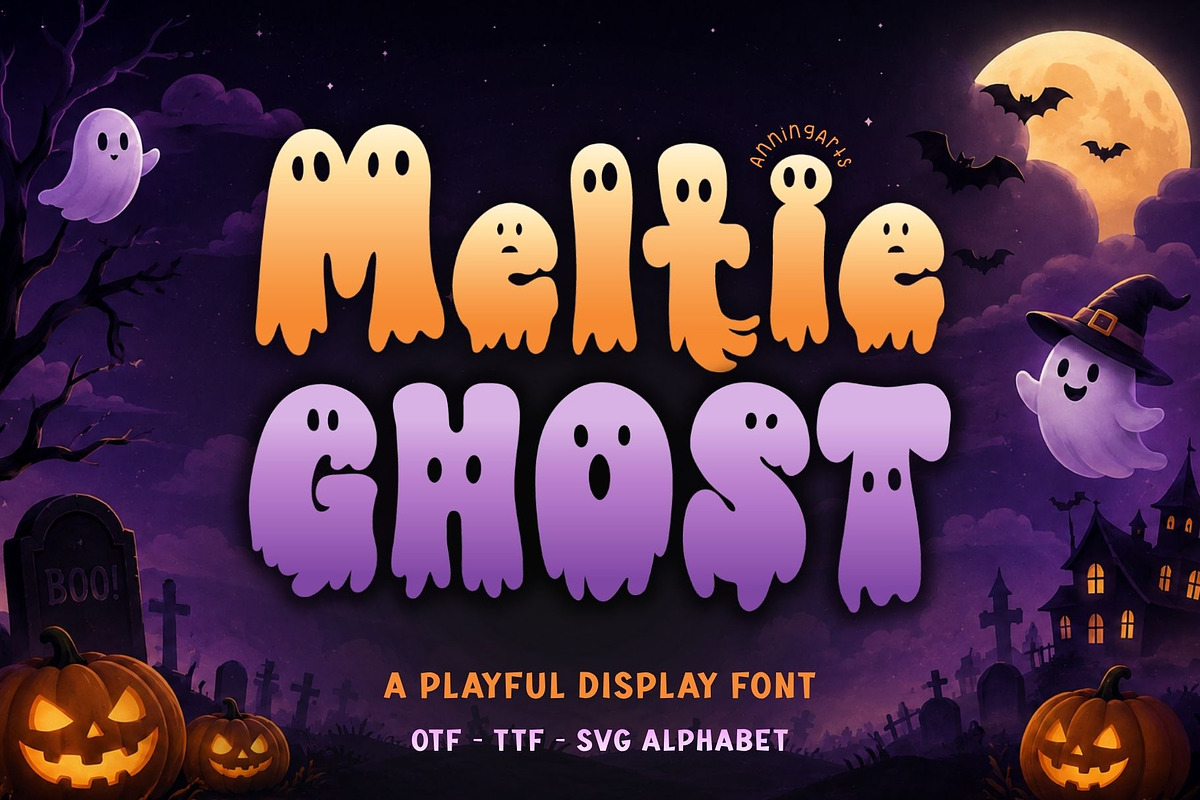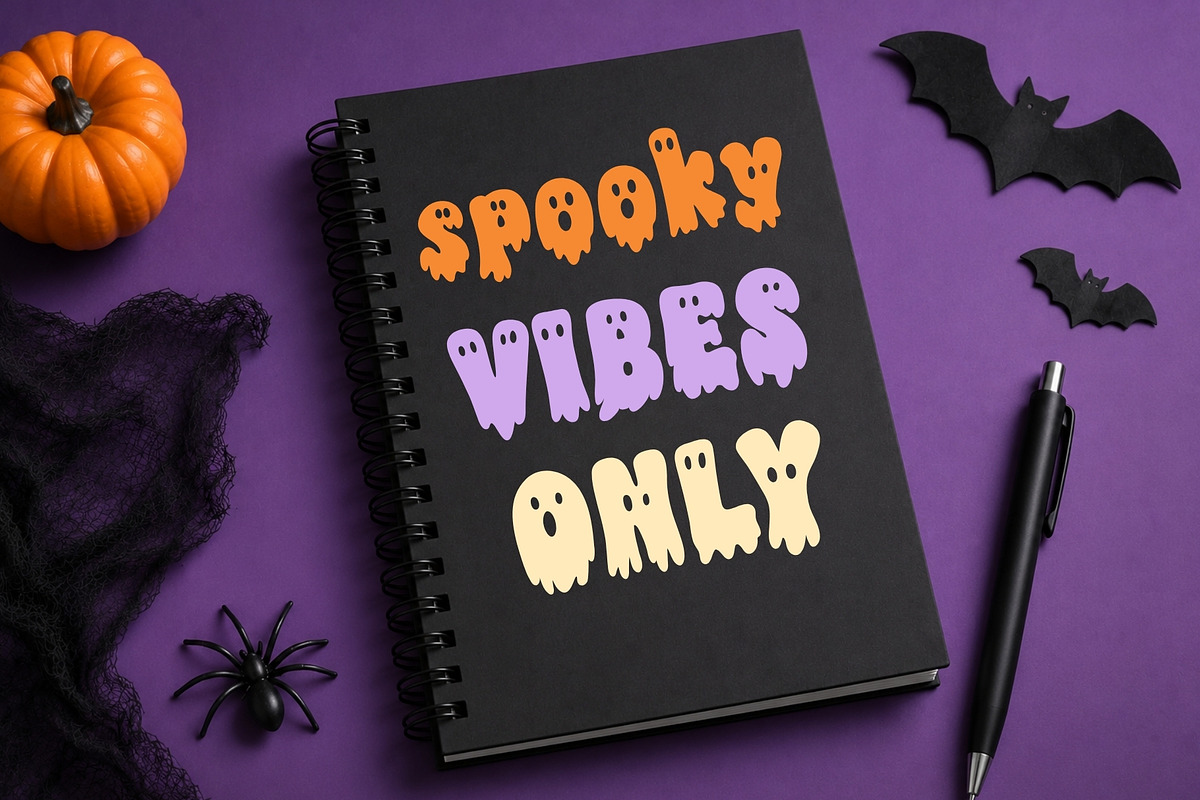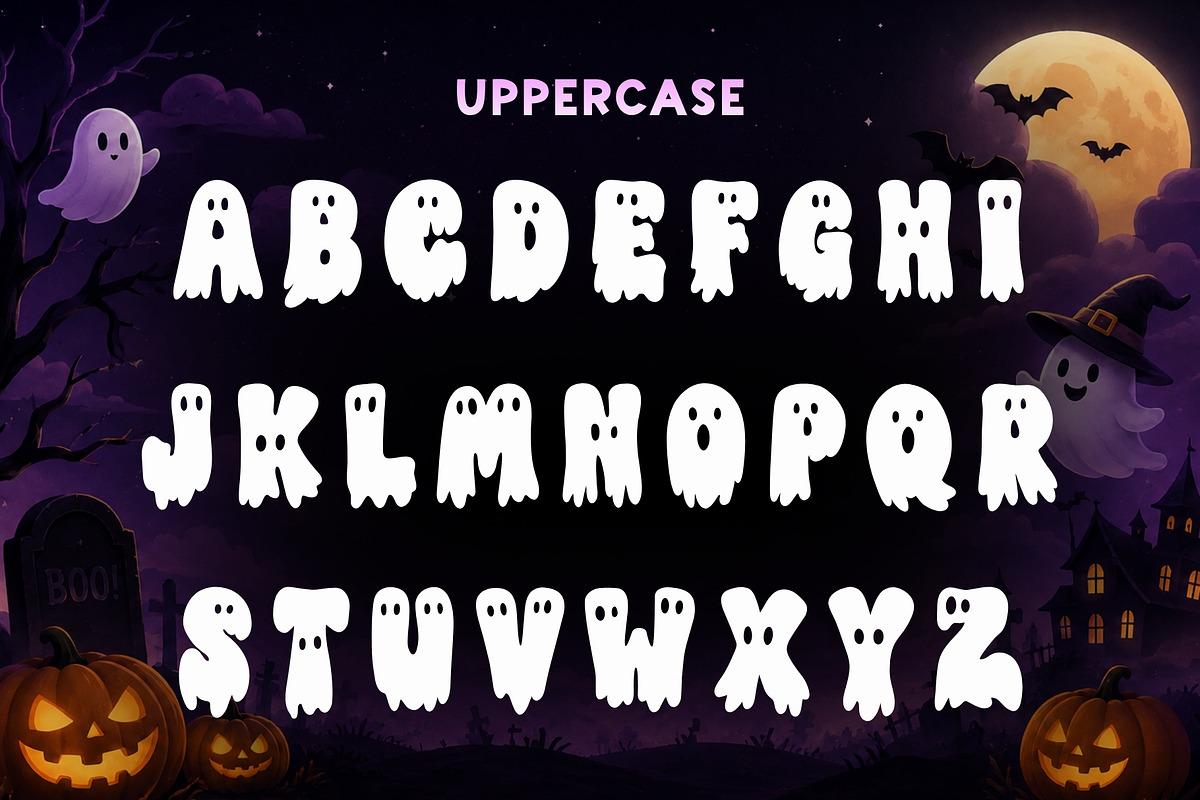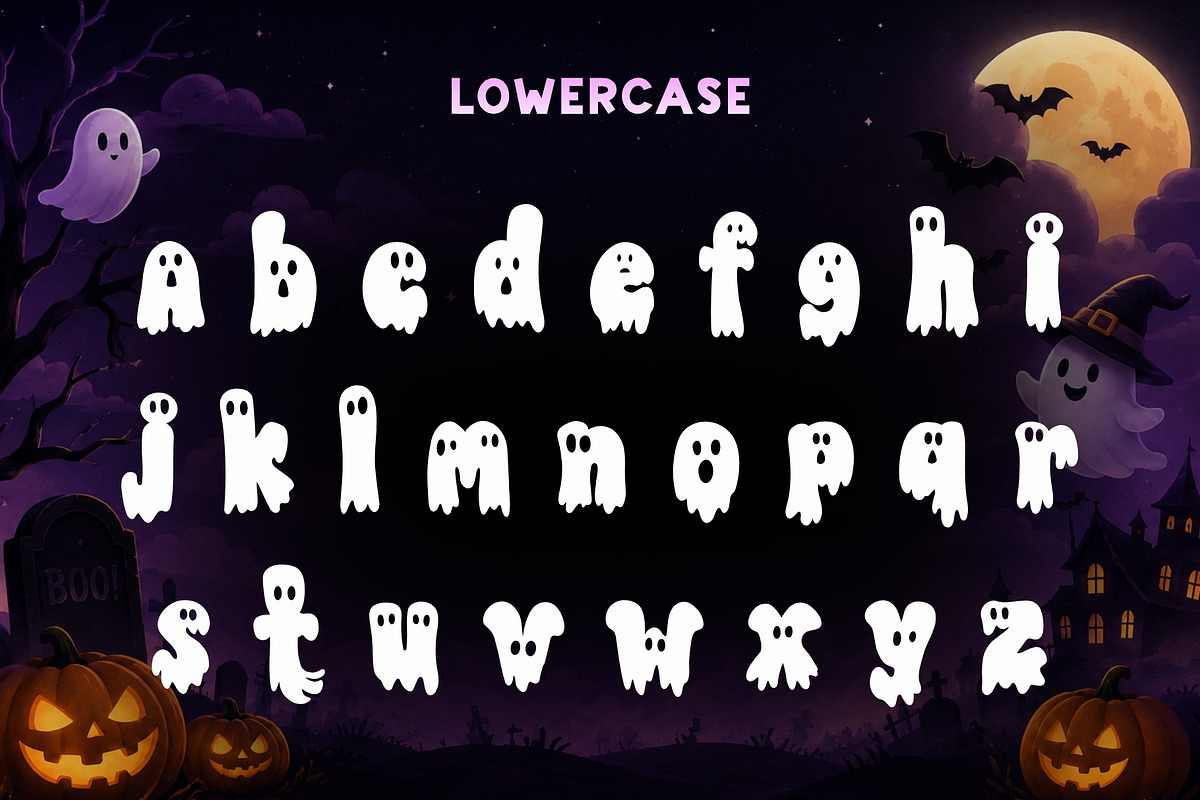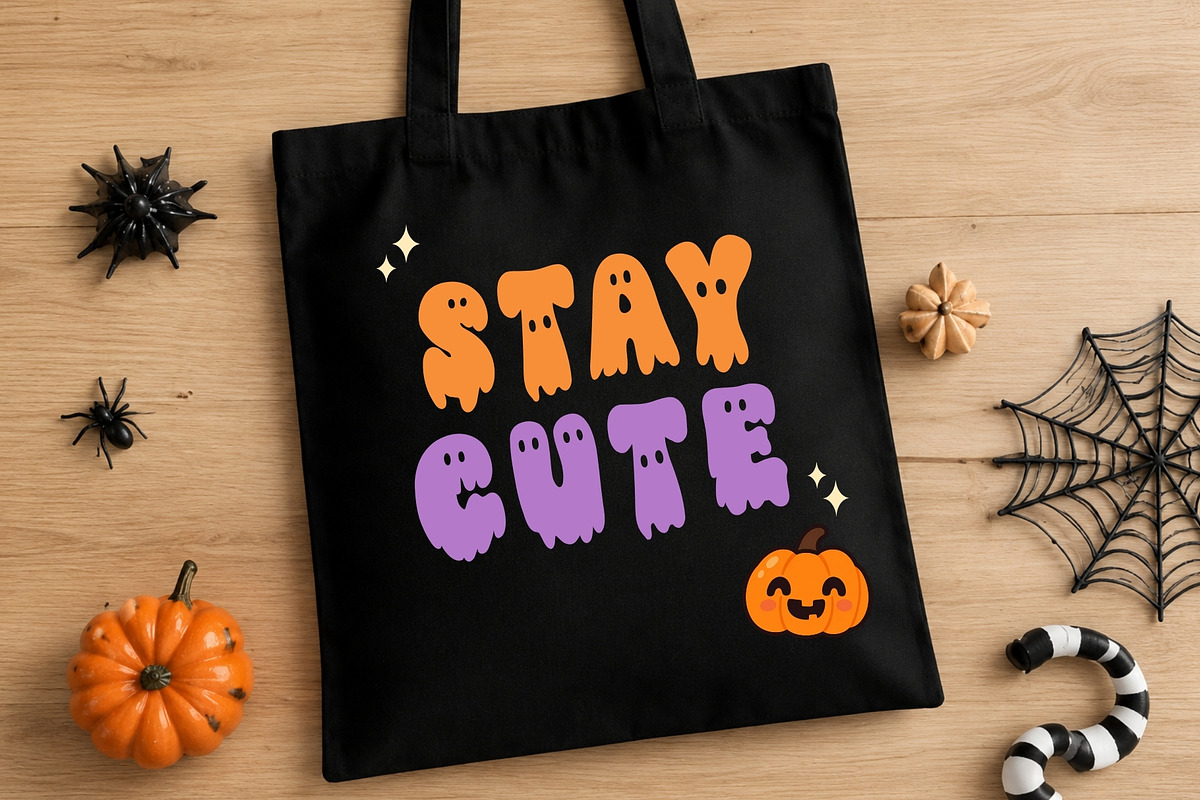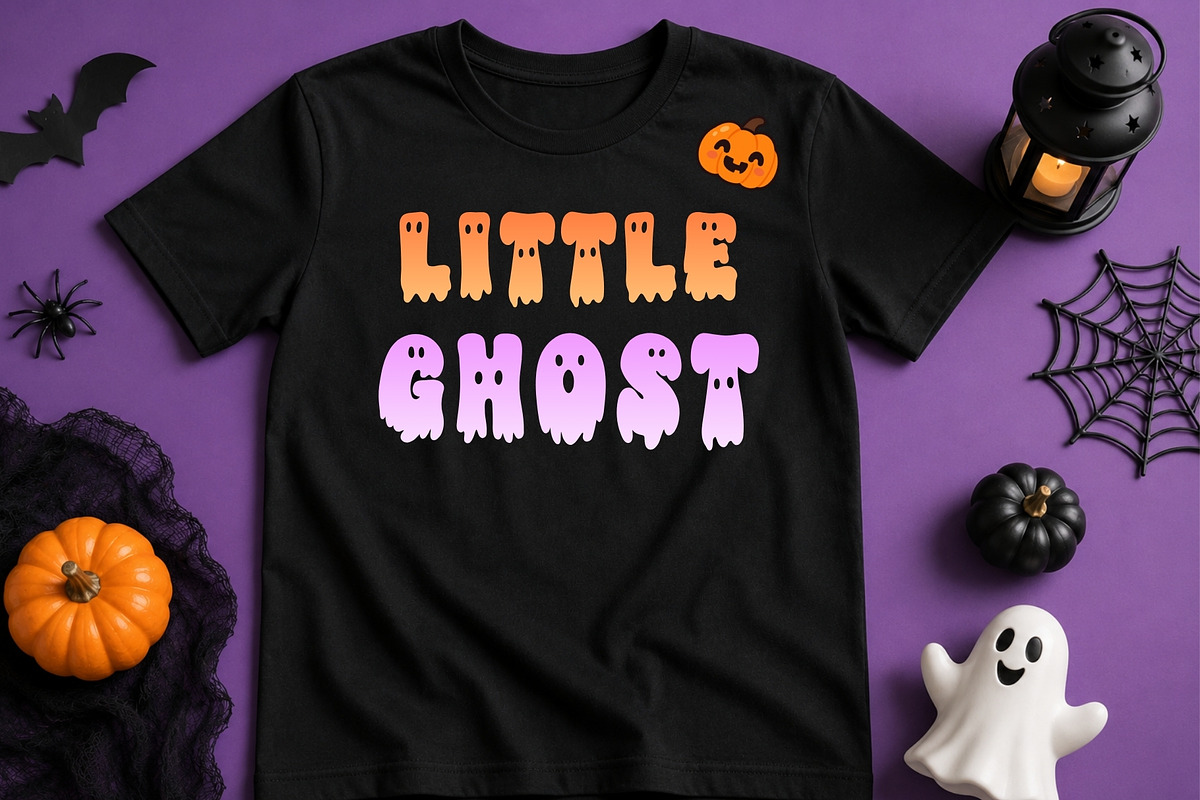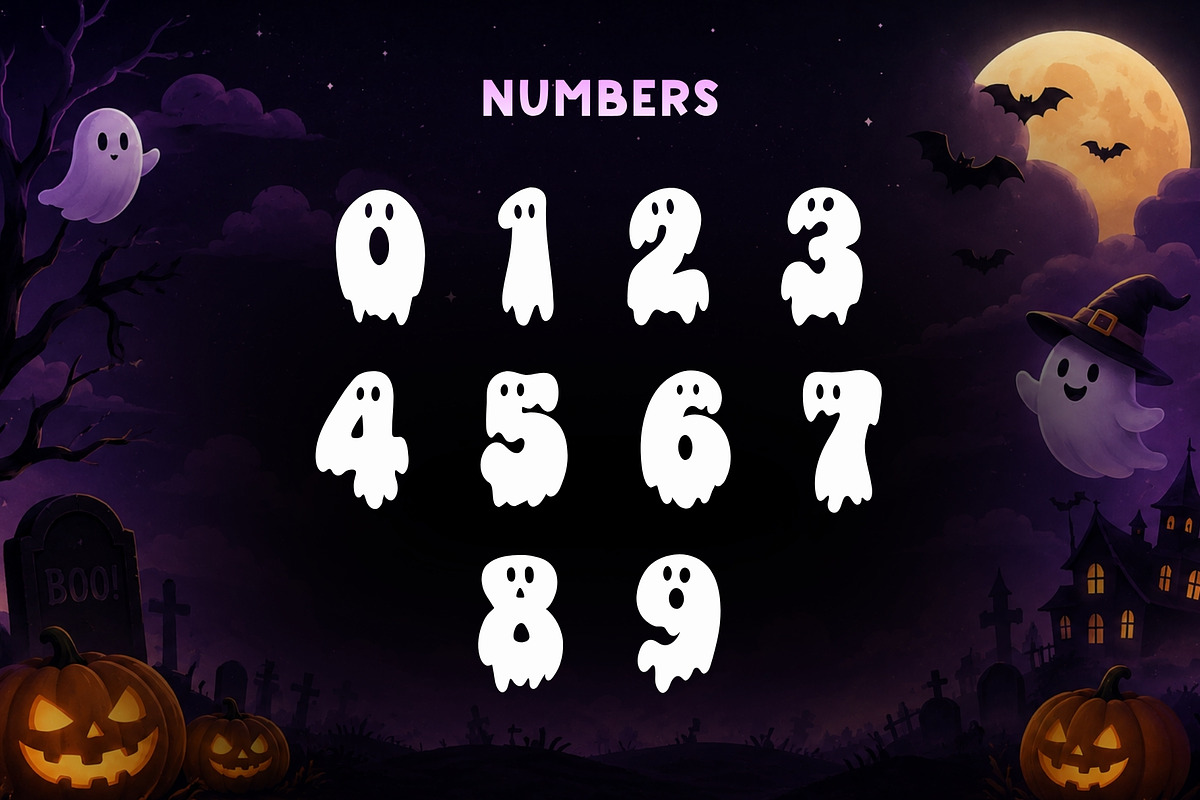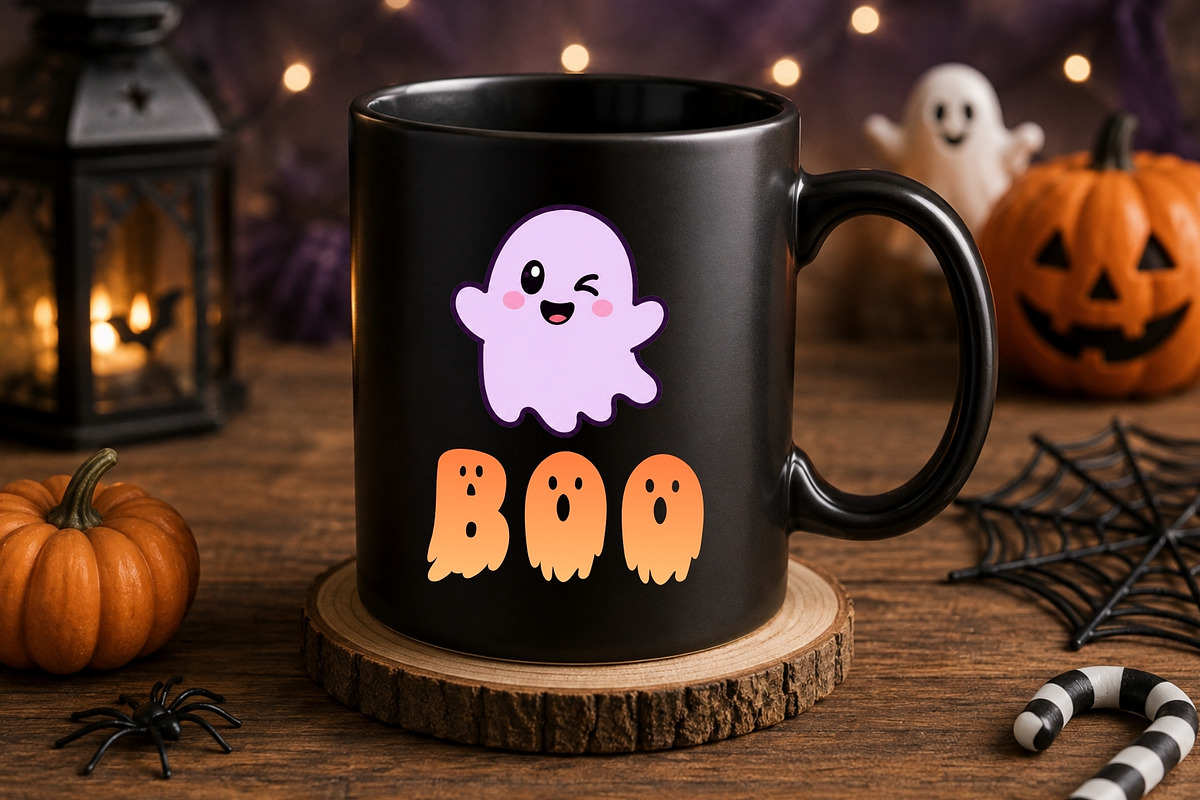
Meltie Ghost-Halloween Display Font
Meltie Ghost is a cute Halloween display font designed with bold ghost-shaped letters, playful faces, and a fun melting style. The rounded character shapes give this font a friendly spooky look, making it ideal for children’s Halloween designs, seasonal merchandise, and festive branding.
The font includes uppercase letters, lowercase letters, and numbers for creating standout titles, short phrases, names, and decorative typography. Its playful style works best for display text rather than long body copy.
Ideal for Halloween apparel, tote bags, mugs, stickers, greeting cards, party invitations, classroom decor, social media graphics, printable products, Cricut and Silhouette crafts, sublimation designs, planner covers, kids’ projects, and spooky cute seasonal collections.